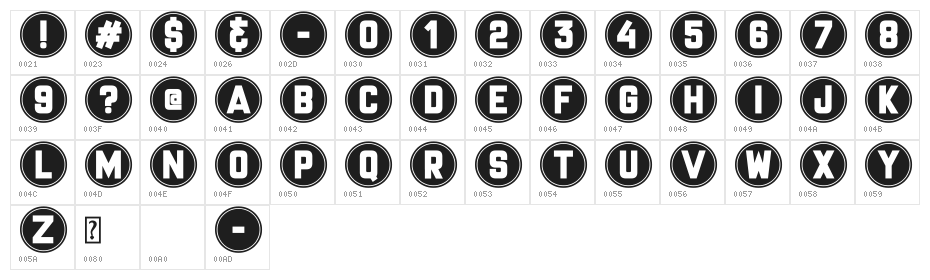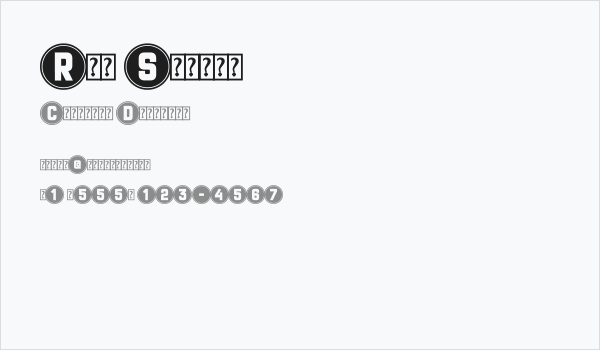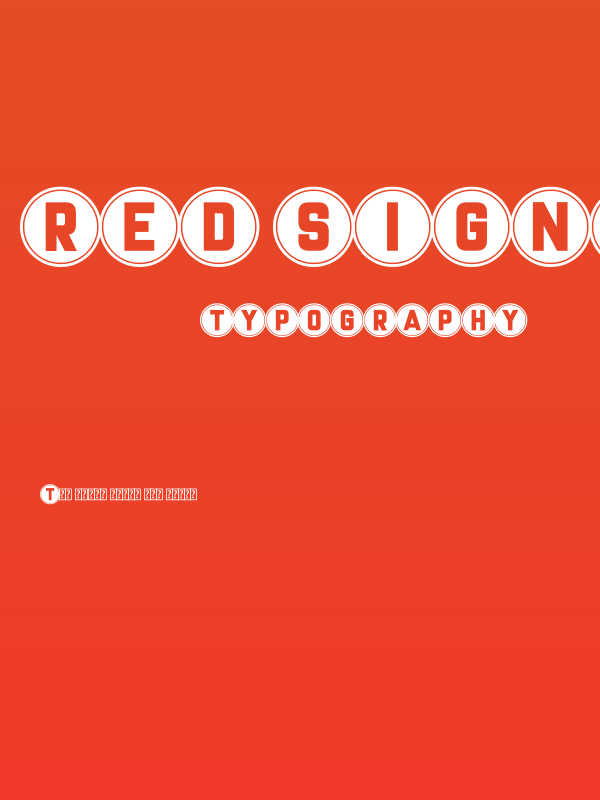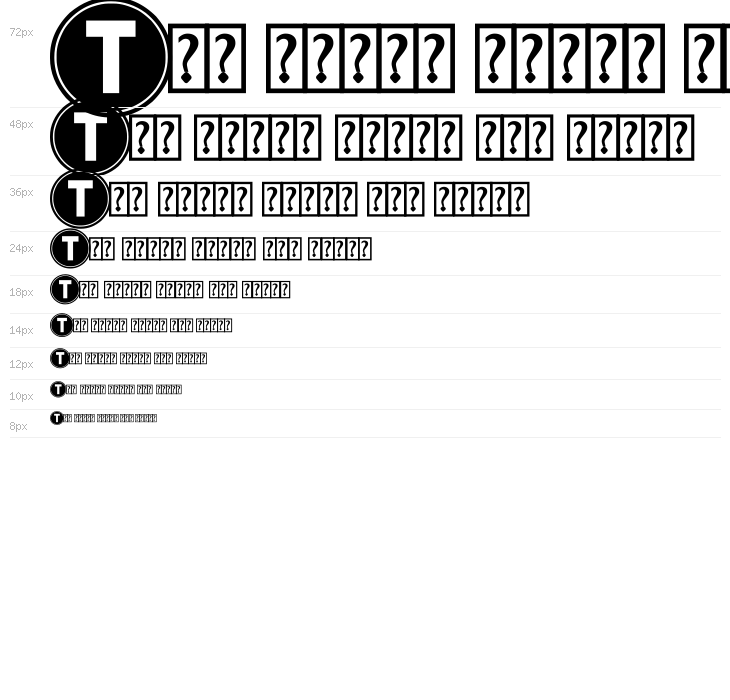
Red Signal Font
Red Signal Description
This font features bold, uppercase letters encased in circular outlines, creating a striking and impactful visual presence. The characters are uniformly designed with a modern, geometric style, emphasizing clarity and readability. The consistent use of circles around each character adds a unique decorative element, making it stand out in any design. The numbers and special characters follow the same design principle, ensuring a cohesive look across all elements. This font is ideal for projects that require a strong, attention-grabbing typeface.
| Use Case | Headlines, Logos, Signage |
| Proposed Projects | Ideal for logos, signage, posters, and branding materials that require a bold statement. |